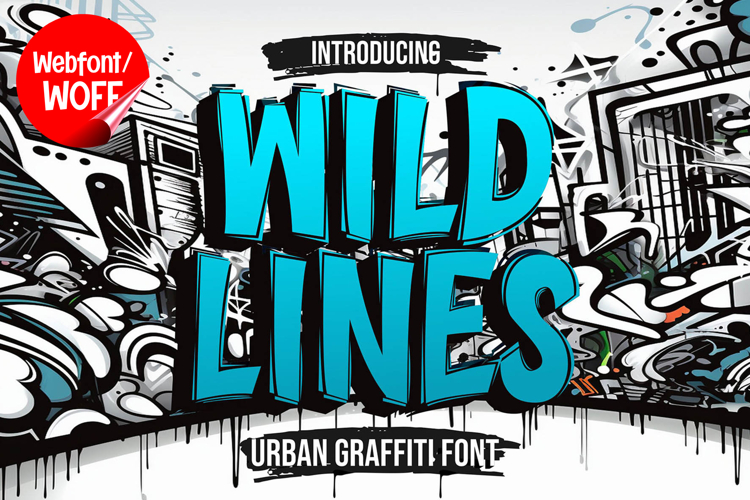
Wild Lines | Decorative Graffiti Webfont for Creative Urban
Wild Lines is a decorative graffiti webfont designed to bring expressive movement, artistic flair, and bold street energy into modern website design. Inspired by freestyle graffiti lettering and experimental line work, this font features dynamic strokes, abstract details, and unconventional forms that create a visually striking typographic identity. It is an excellent choice for projects that aim to stand out with creativity and originality.
Wild Lines includes a complete set of uppercase characters designed with decorative graffiti-inspired forms. The letterforms feature flowing lines and artistic distortions that create a sense of movement and rhythm. These characteristics make it ideal for headlines, banners, hero sections, and featured content where strong visual impact and artistic expression are needed.
In addition to letters, the font includes numbers and punctuation, allowing flexible usage across various parts of a website. It works well for promotional content, branding elements, event announcements, creative layouts, and experimental design projects. Each character maintains a consistent decorative graffiti style, ensuring a cohesive and unified visual identity throughout the layout.
With multilingual support, Wild Lines includes a wide range of accented characters, making it suitable for international websites and global audiences. This ensures that content remains clear and visually consistent across different languages while preserving the expressive and artistic aesthetic.
The decorative graffiti style of Wild Lines makes it especially suitable for urban-themed websites, streetwear brands, music platforms, creative portfolios, and digital art projects. Its energetic and unconventional design adds personality and depth, helping websites stand out in visually competitive environments. The flowing lines enhance the sense of motion and creativity.
Despite its expressive and artistic appearance, Wild Lines is designed with readability in mind. The spacing and proportions are carefully balanced to ensure clarity, particularly in display sizes. This allows designers to use the font effectively for impactful headings and short content without sacrificing usability.
Wild Lines is a webfont that combines graffiti aesthetics with decorative line work and modern digital performance. Its dynamic strokes, creative structure, and urban character create a distinctive typographic presence that enhances website design. For projects that require a bold, artistic, and visually engaging graffiti font, Wild Lines offers a unique and versatile solution.
Wild Lines